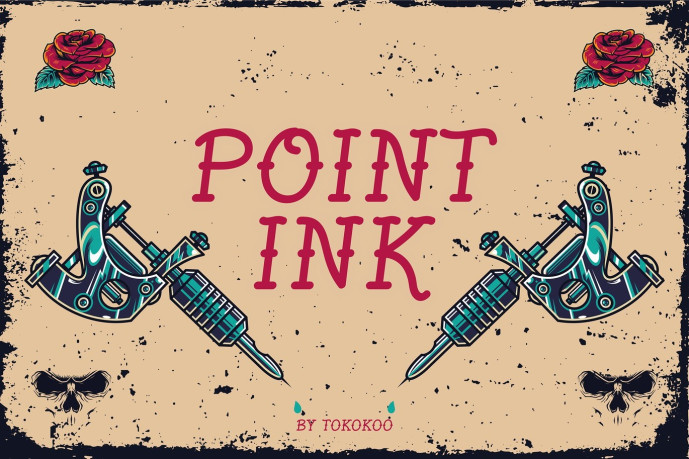
Pointink Font
Designer: Tokokoo
Pointink Font is a daring and expressive font inspired by classic tattoo artistry. With its sharp, handcrafted letterforms and edgy aesthetic, Pointink brings a bold and rebellious energy to your designs. The incorporation of vintage tattoo motifs, such as roses and skulls, adds a striking personality, making it ideal for projects that seek to stand out with flair and character.